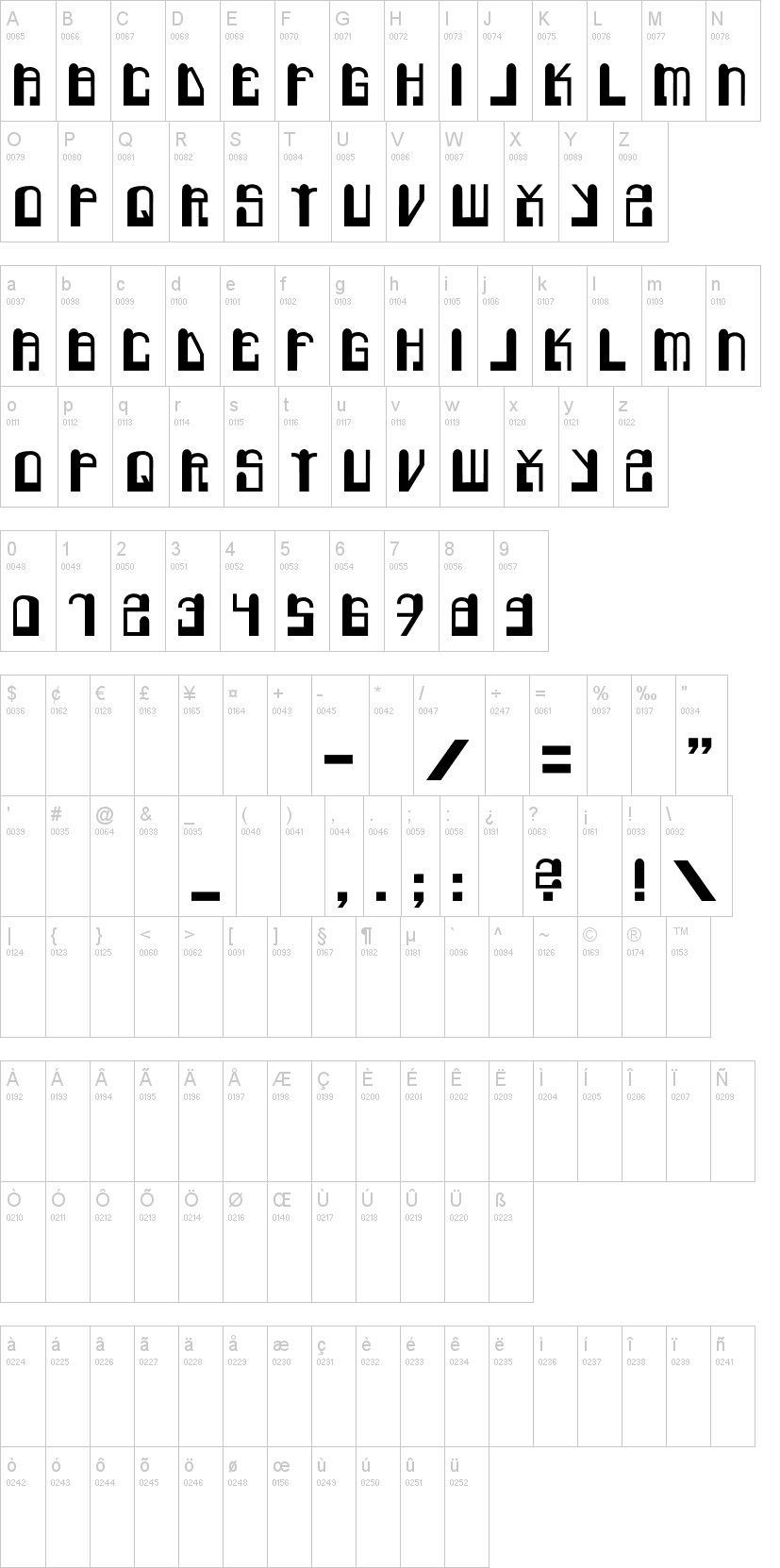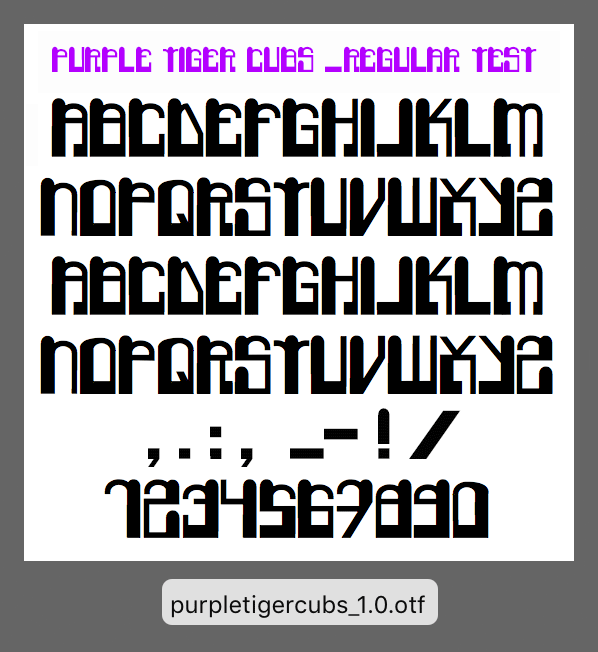
Note of the authorPurple Tiger Cubs
For a Brooklyn based Rap Band with members from YMI, The Pelham Rangers & The Results from NewYork City
a font by Pierre Enorm Exner 2006